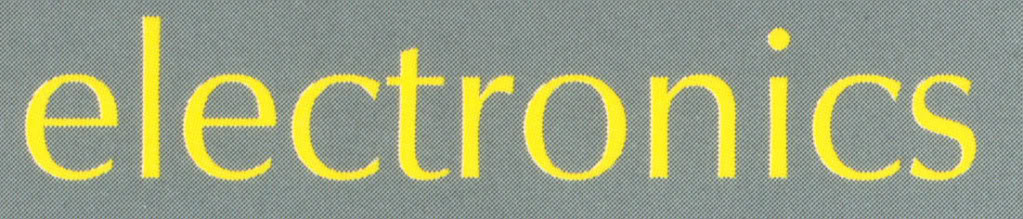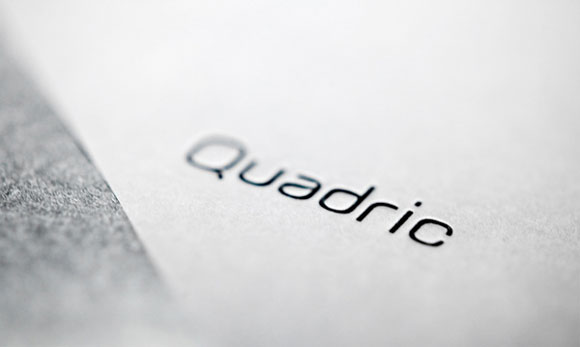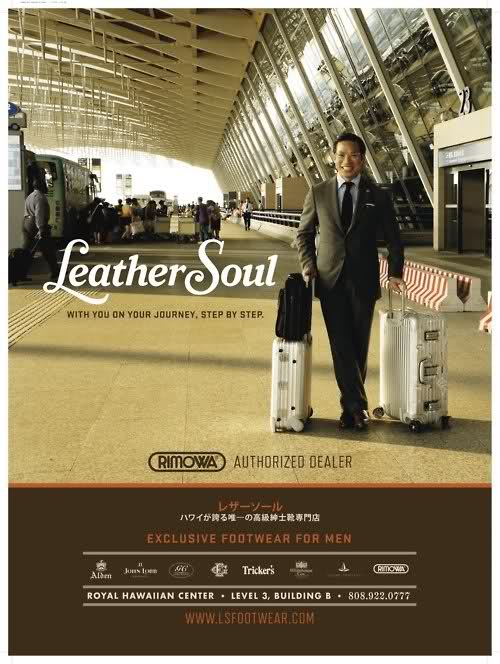
I think you'll find that the rounded appearance is most likely a product of being stamped into the metal, or from wear and tear on that same metal.
OTOH, the centre bar of the E looks much shorter in your sample than in Gotham. If you can live with the E being slightly different, I've found what appears to be a free version of Gotham Light that actually is rounded here.
Help identifying font
tried each and every single font identifying thingy on the web, and couldnt find anything,
so does ANYbody know this font?
Help with this font
Hi guys, havent ever been able to find a match here....
Any guidance?
Anyone know this? It is the letters OSF. thanks....sorry for blur but I think youll get the idea
Any ideas?
I first thought ITC Kabel, but there are differences - take a look at the "E's"
edit: the primary font, not whatever is used for "slide"
Got it - Neutraface (All Caps)
Identify this font!
Any help in identifying this font from some of the typography experts? Searched several font sites and cannot seem to come up with it?
Any help is appreciated.
sweettarts font
Hey, I'm looking for the "Tarts" font from the SweetTarts logo. I've already tried WhatTheFont.com and several "identify by sight" attempts. Help please!
Can someone help me find this font?
I've tried myfonts but its comes up with an error. So does anyone know this font?